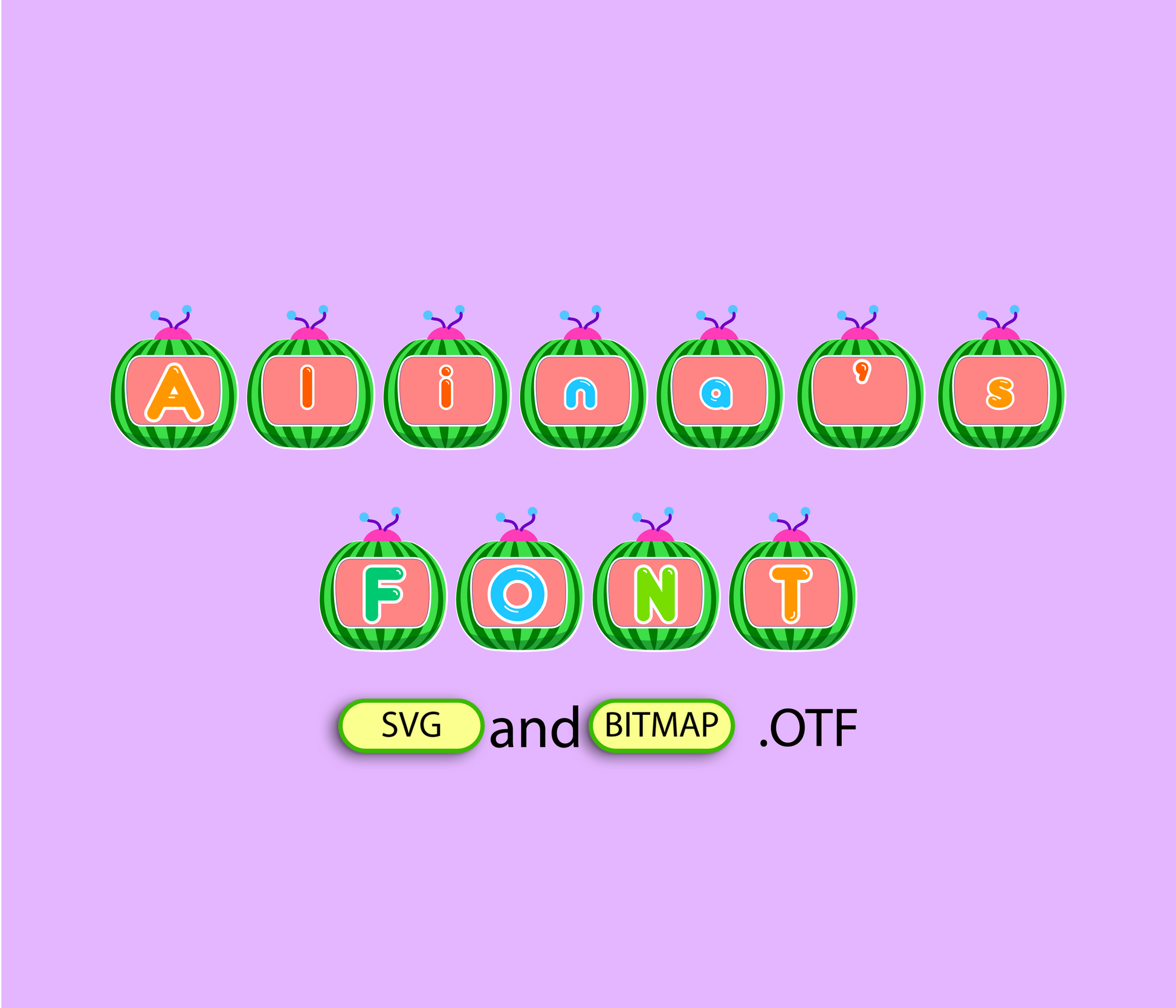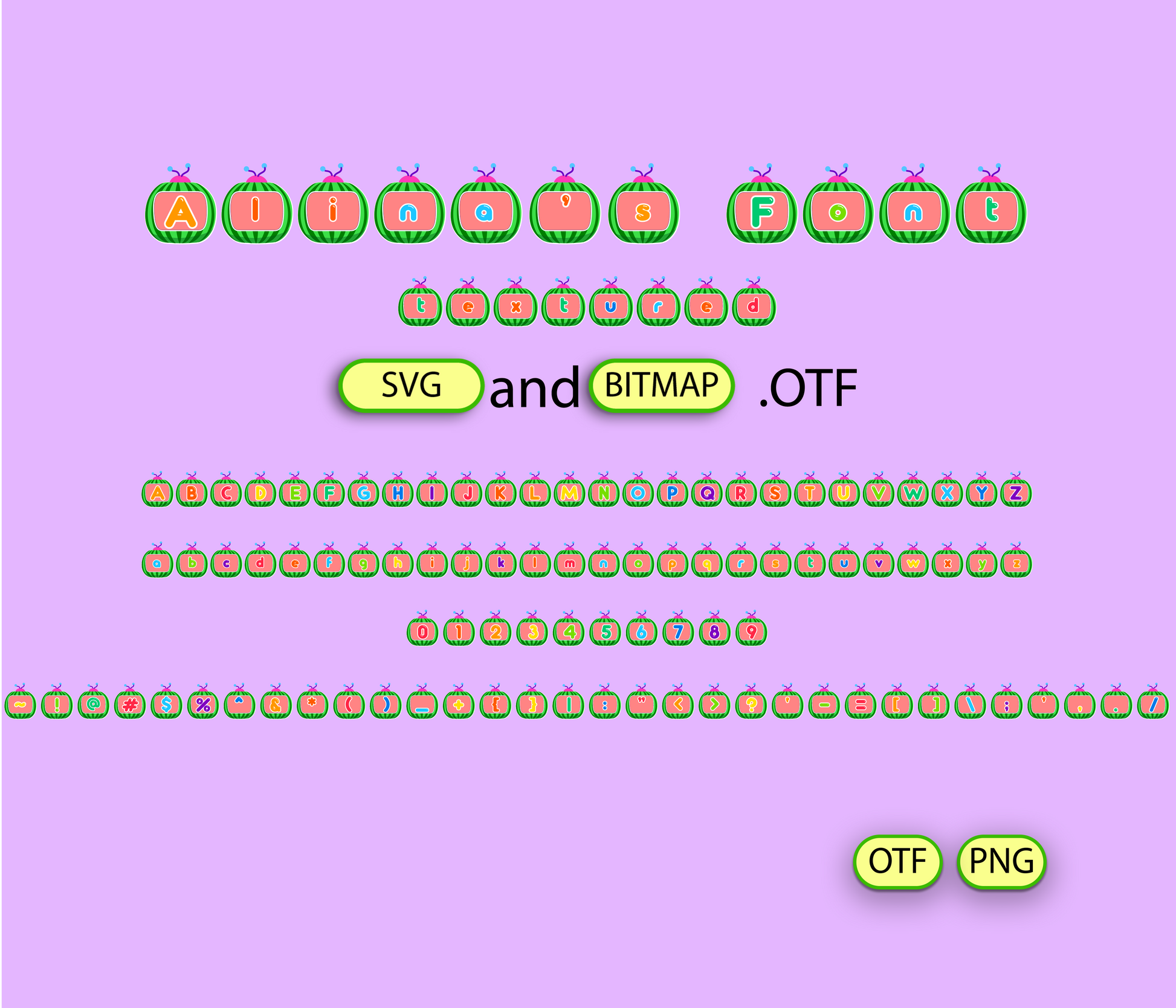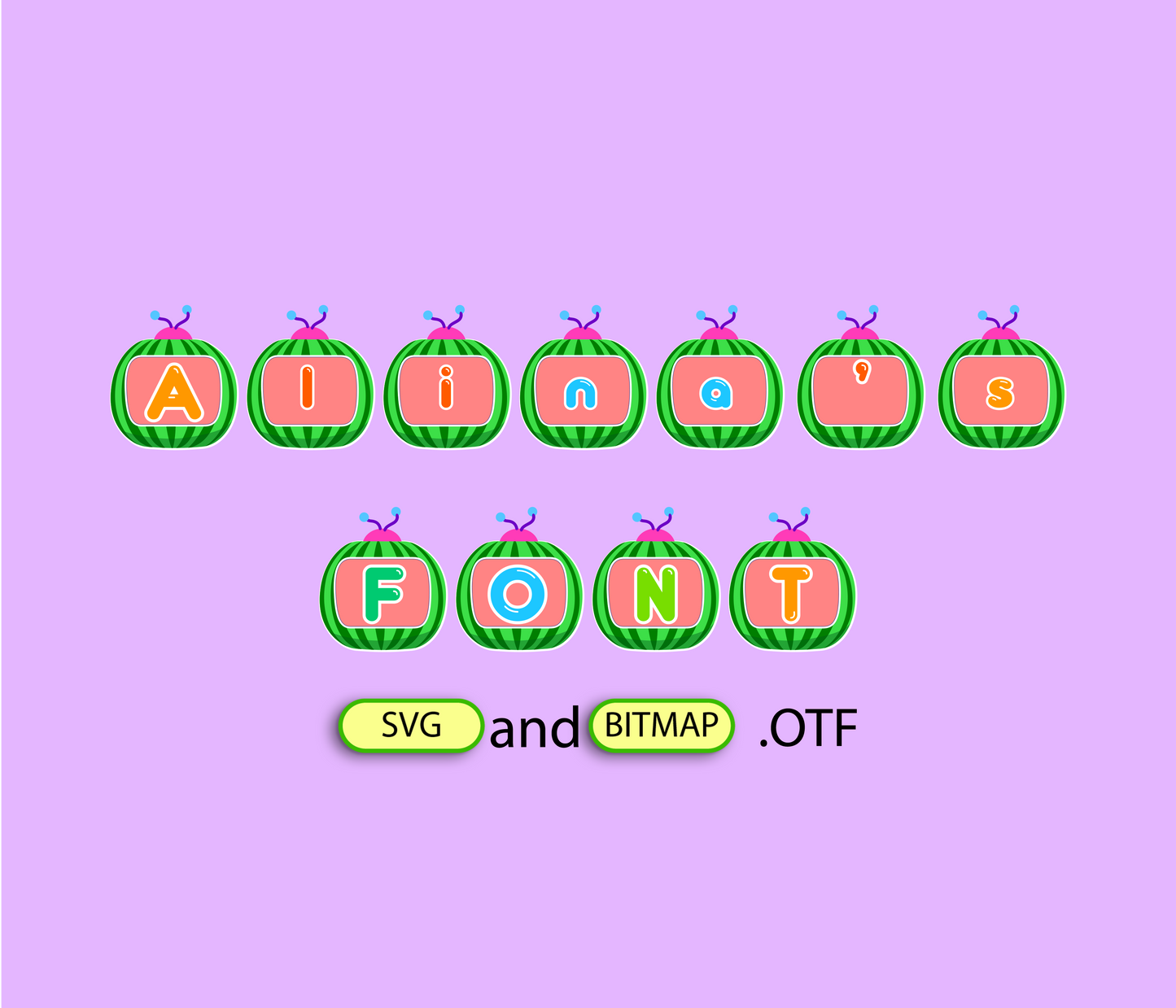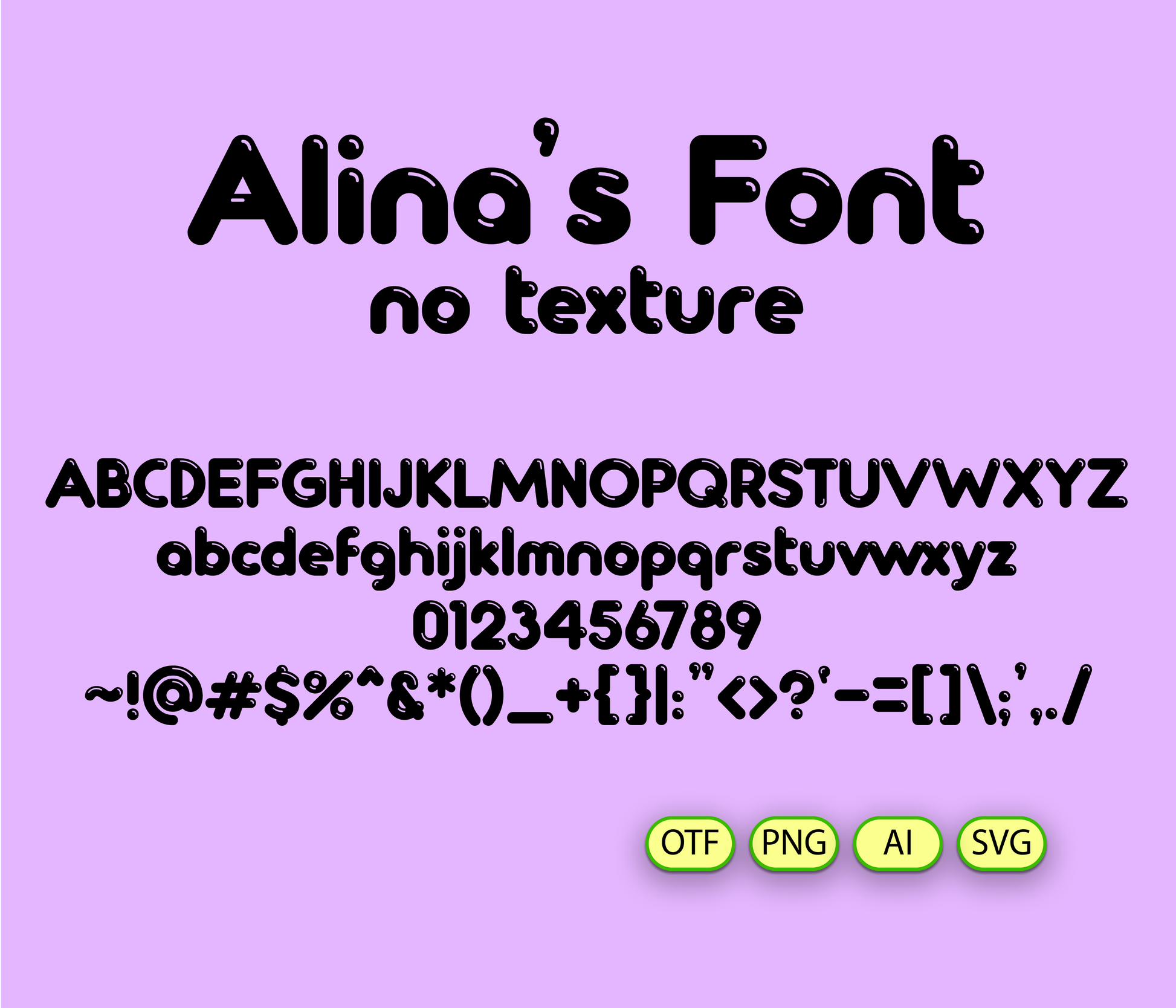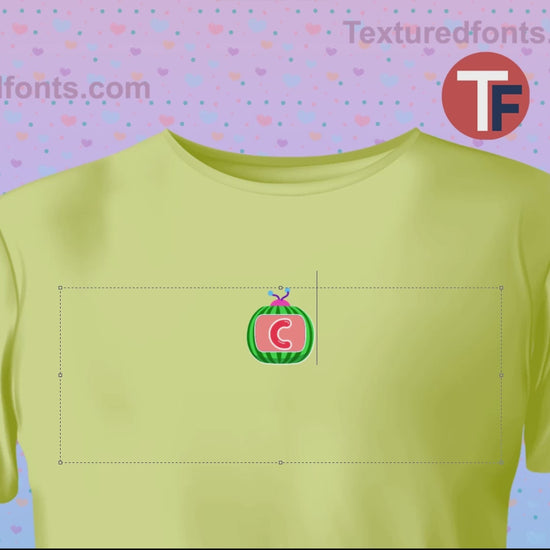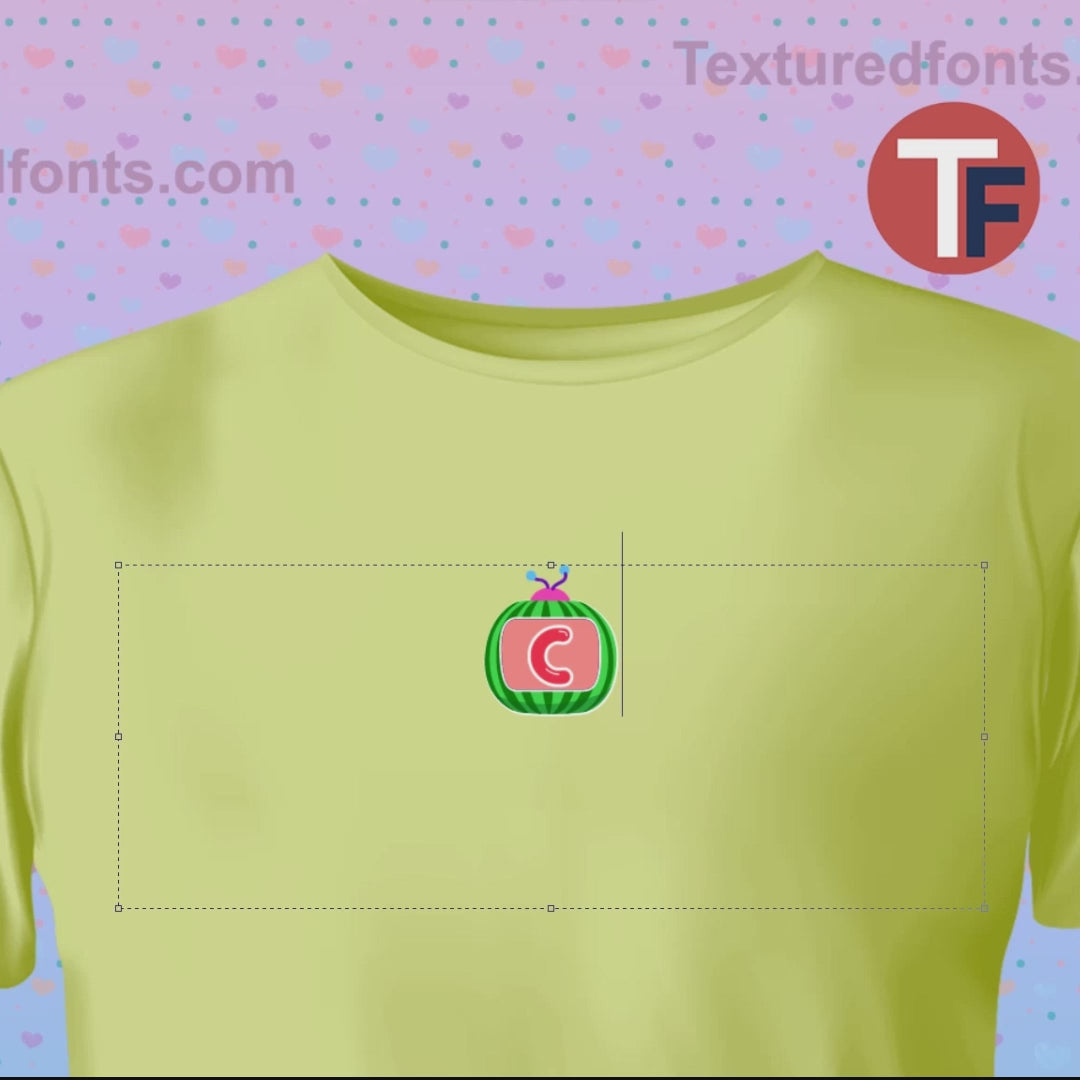
Fun Learning Birthday Banner Font Textured
Celebrate Whimsical Learning with the Fun Learning Font
Immerse yourself in the colorful and educational world of Fun Learning with our specially designed font that captures the essence of this beloved children’s series. Perfect for educators, parents, and designers, our Fun Learning-inspired font brings the playful and cheerful vibe of the show to your projects. Whether you're creating educational materials, designing children's party invites, or crafting personalized kids' room decor, this font ensures your creations are as engaging and fun as the episodes themselves.
This FunLearning-inspired font is not just for show; it’s a versatile tool for numerous creative and educational applications:
- Educational Materials: Create engaging learning worksheets or classroom decorations.
- Children's Apparel: Design bright and cheerful clothing that kids will love to wear.
- Party Supplies: Make customized invitations, banners, and thank-you cards for children's parties.
- Digital Design: Enhance websites or apps aimed at young children with user-friendly typography.
- Personalized Gifts: Craft unique gifts like custom storybooks or name plaques for children.
- Nursery Decor: Design wall art or labels that add a playful touch to any child’s room.
- Stationery: Create fun and colorful stationery sets for school or home use.
- Video Content: Use the font in titles or credits for family-friendly YouTube videos or educational content.
Features and Compatibility